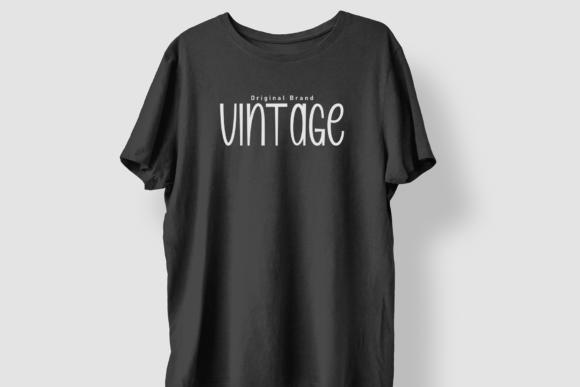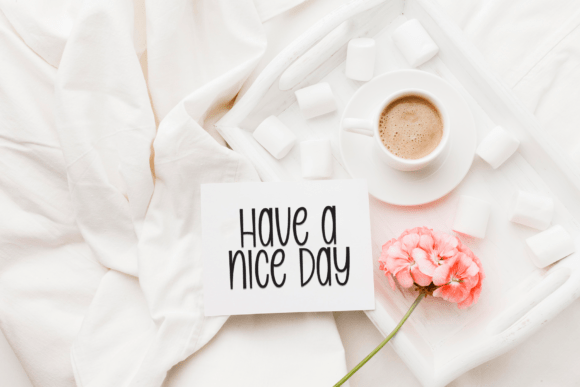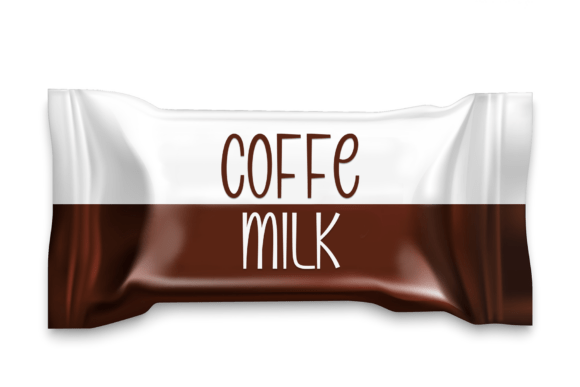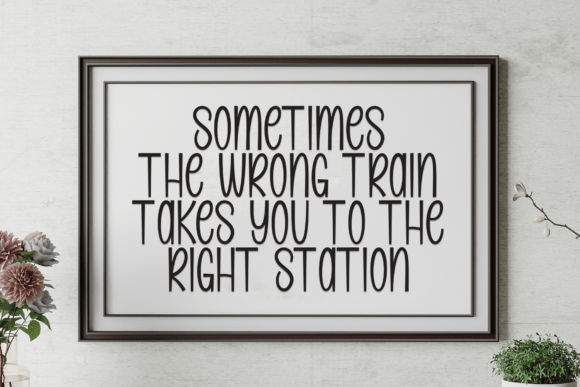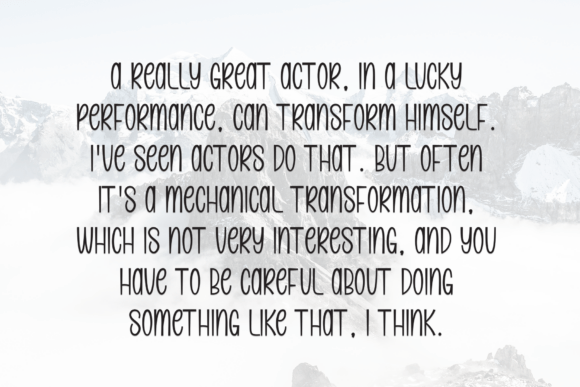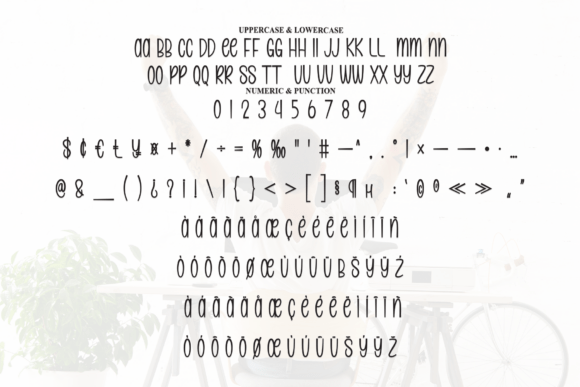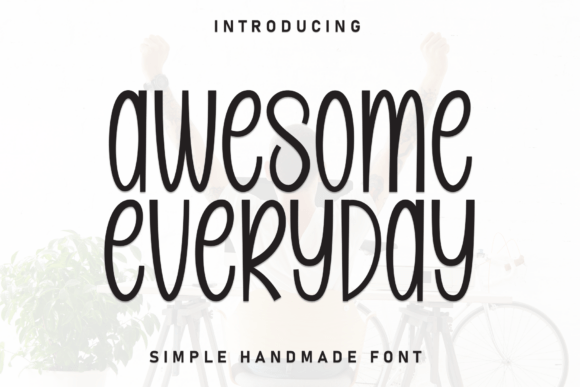
The Awesome Everyday Font: A Designer’s New Best Friend
I still remember the last time I was working on a branding project, and I just couldn’t find the right font. My client wanted something that was friendly, approachable, and modern, but not too fancy. I spent hours scouring through font libraries, but nothing seemed to fit the bill. That was until I stumbled upon the Awesome Everyday font. It was love at first sight! ✨
Awesome Everyday is a casual and neat display font that combines simplicity with a friendly, approachable vibe. Featuring clean lines, balanced letterforms, and subtle rounded edges, it captures the essence of modern handwritten typography with a polished finish. In this article, I’ll share my experience with this font, its features, and how to make the most of it in your designs.
- ✅ Clean and Simple Design: Awesome Everyday has a crisp structure that makes it perfect for headlines, branding, and digital content.
- ✅ Versatile Style: This font delivers clarity and charm in equal measure, making it suitable for a wide range of design projects.
- ✅ Easy to Read: The subtle rounded edges and balanced letterforms ensure that the font is easy to read, even at smaller sizes.
- ✅ Modern Handwritten Feel: Awesome Everyday has a friendly, approachable vibe that’s perfect for modern designs.
While Awesome Everyday is an excellent font, there are a few things to keep in mind: 🤔
- ⚠️ Limited Use in Serif Contexts: As a display font, Awesome Everyday works best in headlines and titles. It might not be the best choice for body text or long-form content.
- ⚠️ Not Ideal for Very Small Sizes: While the font is generally easy to read, it may lose some of its charm when used at very small sizes (below 10-12 points).
A Practical Guide to Using Awesome Everyday
The Story Behind Awesome Everyday
Awesome Everyday was designed with the goal of creating a font that’s both modern and approachable. The designer wanted to capture the essence of handwritten typography with a polished finish, making it perfect for a wide range of design projects. The font’s clean lines, balanced letterforms, and subtle rounded edges make it a versatile choice for designers, crafters, and creative hobbyists.
Q: What is Awesome Everyday font?
A: Awesome Everyday is a casual and neat display font that combines simplicity with a friendly, approachable vibe.
Q: What can I use Awesome Everyday font for?
A: Awesome Everyday is ideal for branding, headlines, packaging, and digital content.
Q: Is Awesome Everyday font easy to read?
A: Yes, Awesome Everyday has a clean design and subtle rounded edges that make it easy to read, even at smaller sizes.